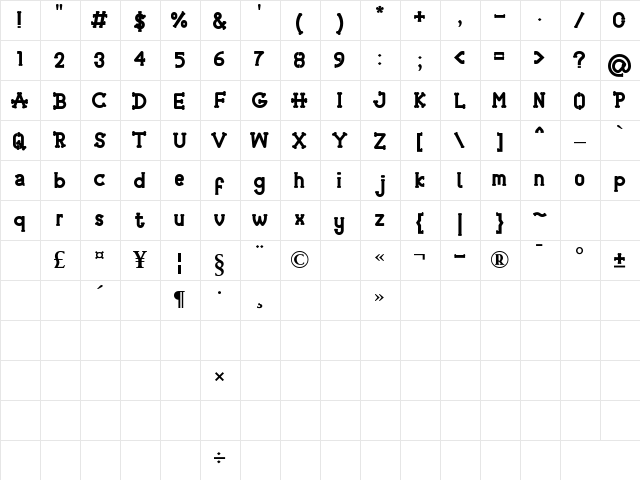
Skelboune Bold Font Preview
Skelboune Bold
Skelboune Bold Font Details
Design Context for Skelboune Typeface
Skelboune is a composed and adaptable typeface that performs quietly and consistently across a wide range of design contexts. Its bold stroke weight gives it real presence on the page.